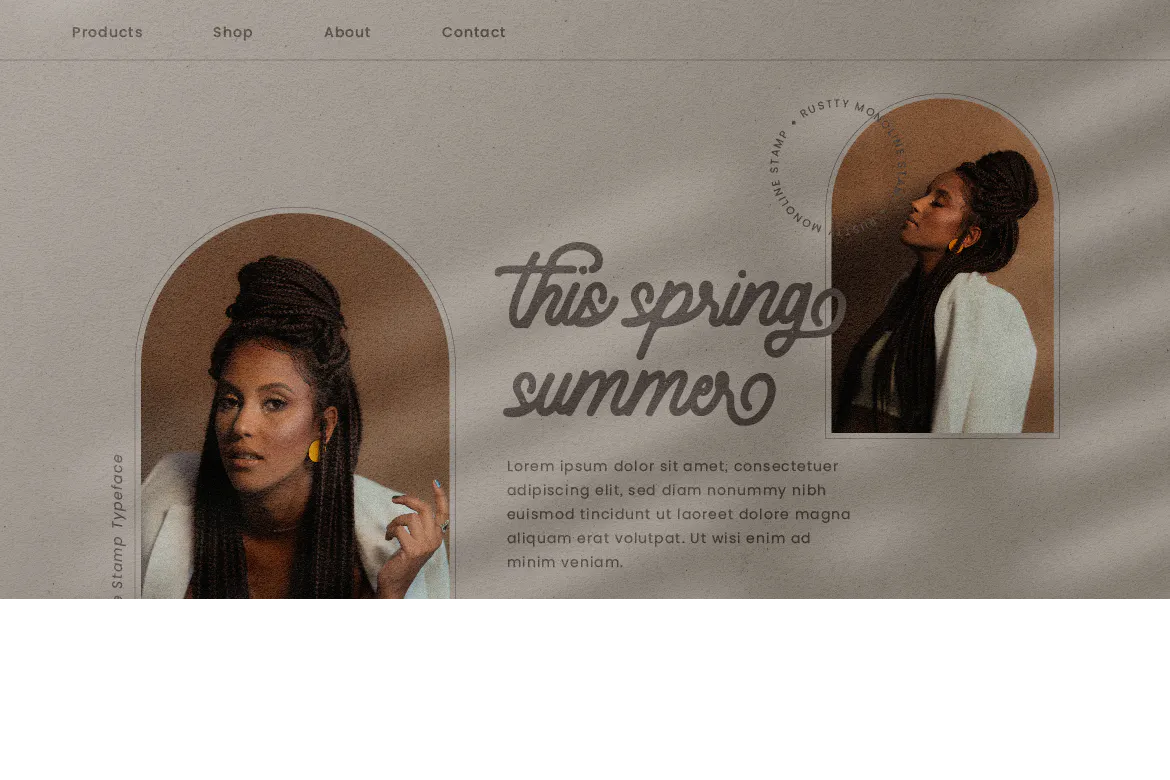
Rustty Monoline Stamp Typeface
Rustty Monoline Stamp is a modern vintage font that looks elegant and natural with bold strokes that make Rustty look classy and stylish.
Rustty is perfect for branding projects, logo, wedding designs, social media posts, advertisements, product packaging, product designs, label, photography, watermark, invitation, stationery and any projects that need handwriting taste.
• Ton of glyphs
• Ligature & Alternate
• Fonts include multilingual support for; Afrikaans, Albanian, Czech, Danish, Dutch, English, Estonian, Finnish, French, German, Hungarian, Italian, Latvian, Lithuanian, Norwegian, Polish, Portugese, Slovak, Slovenian, Spanisch, Swedish.